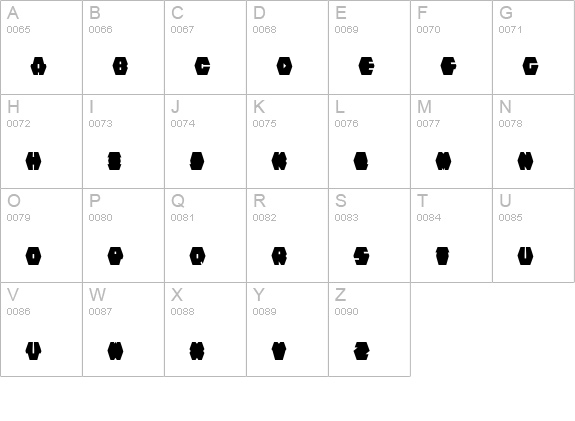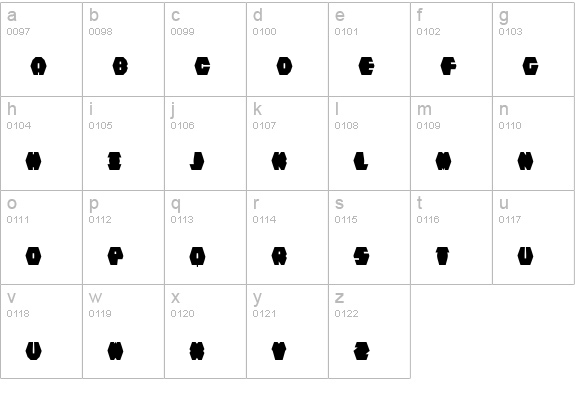
ZebrawOS Font Details
ZebrawOS font is a stunning display typeface that exudes elegance and sophistication. With its unique zebra-like patterns and sleek design, this font is sure to make a statement in any project. Whether you're creating a logo, poster, or website, ZebrawOS font will add a touch of modernity and flair. But the best part? ZebrawOS font is completely free to download at FontsMarket.com. That's right, you can access this striking font at no cost and elevate your designs without breaking the bank. Don't miss out on the opportunity to enhance your creative projects with ZebrawOS font today!